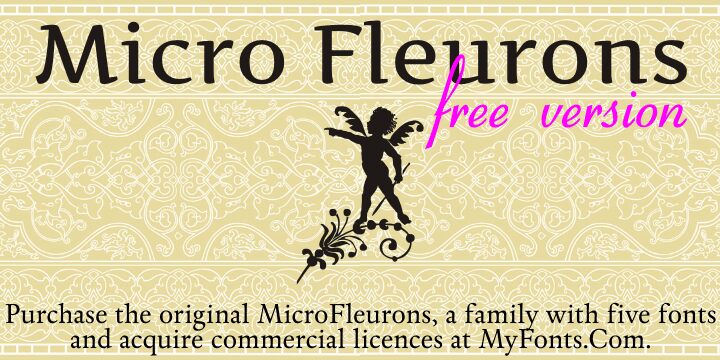
Micro Fleurons by Paulo W is a free nature dingbat font filled with curling plants, flowers, birds, insects, and fairy-like figures. Its silhouettes range from compact floral emblems to tall, trailing ornaments. Fine tendrils give the collection a delicate, lively line.
Boutique stationery brands and garden-focused businesses could use these symbols to build an ornamental identity. They also suit wedding invitations, book covers, and event posters with botanical or storybook themes. Because vines and creatures recur, the symbols can become borders, dividers, or accents tied directly to the subject.
Micro Fleurons Free by Intellecta Design is a non-commercial version with an unpublished set that differs from the original Micro Fleurons.